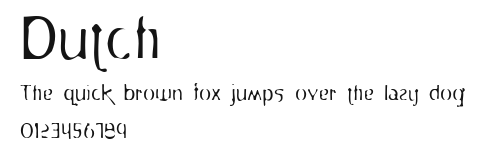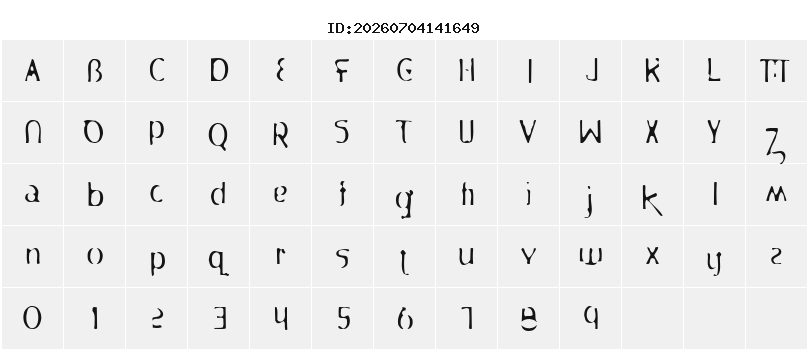
• Font Name: Dutch
• Font Style: Oven
• Font ID: Altsys Fontographer 4.0.2 Dutch Oven
• Full Font Name: Dutch Oven
• Version: Altsys Fontographer 4.0.2 2/20/97
• PostScript Name: DutchOven
About Dutch.ttf
Dutch.ttf is a modern, elegant sans-serif font designed for ultimate readability and visual harmony. Perfect for branding, headlines, web design, and print materials.